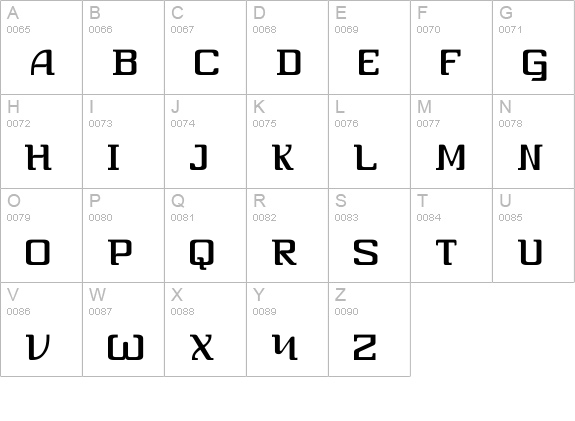
Introducing Three-Sixty font, a mesmerizing typeface that is sure to elevate your design projects to new heights. This unique and versatile font combines elegance with a touch of modernity, making it perfect for a wide range of creative endeavors. With its clean lines and balanced proportions, Three-Sixty font exudes a sense of sophistication and professionalism. Its sleek and contemporary design lends itself beautifully to various applications, including branding, logo design, headlines, posters, and more. What sets Three-Sixty font apart is not just its stunning aesthetics, but also its accessibility. This font is freely available to download at FontsMarket.com, ensuring that designers and enthusiasts alike can unleash their creativity without any restrictions. Whether you're a professional graphic designer or a passionate hobbyist, Three-Sixty font offers you the freedom to bring your visions to life. The versatility of Three-Sixty font is further enhanced by its wide range of weights and styles. From the delicate and graceful Thin, to the bold and commanding Black, this font allows you to effortlessly convey different moods and tones within your designs. With its extensive character set, including uppercase and lowercase letters, numerals, punctuations, and special symbols, Three-Sixty font provides endless possibilities for expressing your unique style. Not only does Three-Sixty font excel in visual appeal, but it also ensures optimal legibility. Its carefully crafted letterforms and generous spacing make it a joy to read, whether in small paragraphs or large headlines. This font is truly a testament to the perfect balance between form and function. So why wait? Experience the beauty and versatility of Three-Sixty font today. Download it freely at FontsMarket.com and embark on a creative journey that knows no bounds. Whether you're designing for print or digital media, this font is here to elevate your projects and captivate your audience with its timeless charm. Let Three-Sixty font be your go-to choice for all your design needs, and unlock a world of endless possibilities.